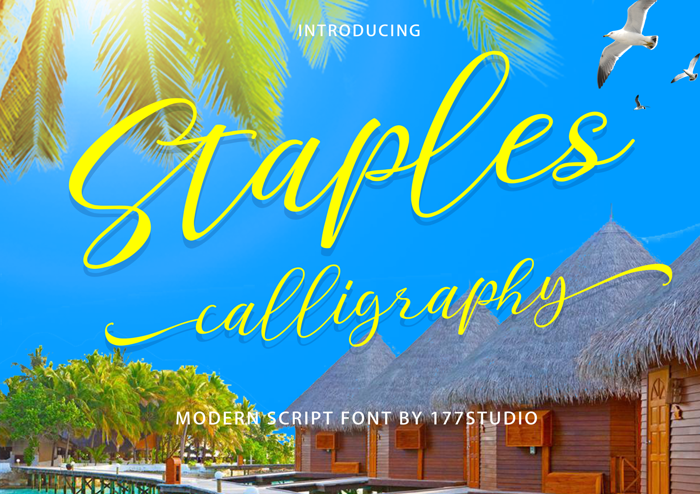
Staples Calligraphy Font
Introducing Staples Calligraphy Font, It’s an ultra-modern typeface with a tasty flow, snap-perfect characters and start & end swashes.